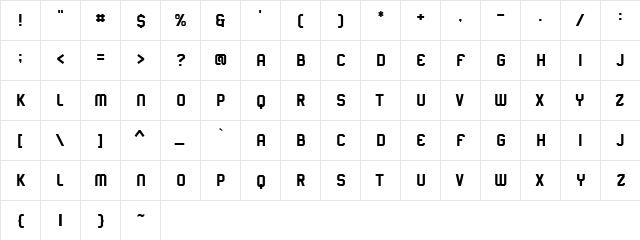
Sporter Regular
| Foundry | Blankids Studio |
| Designer | Bangkit Tri Setiadi |
Design Context for Sporter Typeface
Sporter brings high-energy athletic personality to the page — its confident, muscular forms are built for impact.
Built for sports team identities, athletic apparel, event posters, and high-energy promotional material.
Font Pairing: Use alongside a condensed or geometric sans for supporting copy — keep the pairing bold, functional, and free of ornament.
Pro Tip: Sporter thrives on contrast — try it large, bold, and tight against a clean background for maximum visual impact.